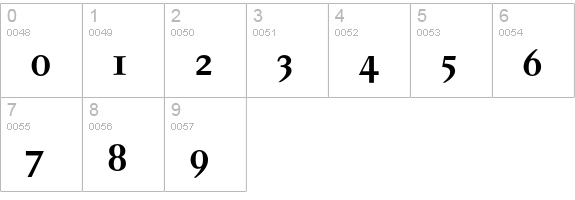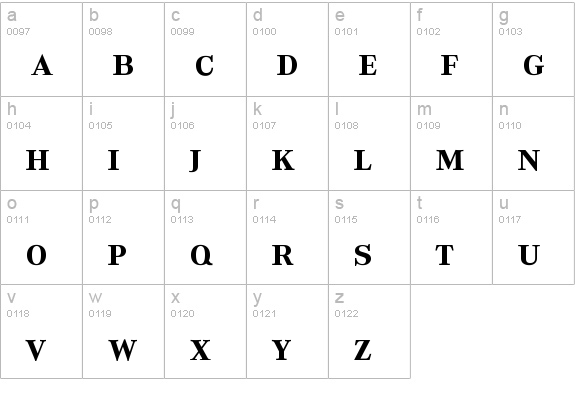
CorporateASC-Bold Font Details
CorporateASC-Bold is a strong, high-contrast variant in the CorporateASC typeface family \xE2\x80\x94 well suited to headlines, attention-grabbing titles, and strong calls-to-action.
CorporateASC-Bold font is a modern and sleek typeface that exudes professionalism and sophistication. With its bold and strong presence, it is perfect for corporate branding, business materials, and advertising designs. The clean lines and sharp edges of this font make it highly versatile and suitable for a wide range of projects. What sets CorporateASC-Bold font apart is not only its aesthetic appeal but also the fact that it is available for free download at FontsMarket.com. This means that you can easily access this premium quality font without any cost, making it a valuable asset for designers, businesses, and individuals looking to elevate their projects. Whether you are creating a logo, designing a website, or crafting marketing materials, CorporateASC-Bold font is sure to make a statement and leave a lasting impression. Download this font today and enhance your designs with its bold and professional style.